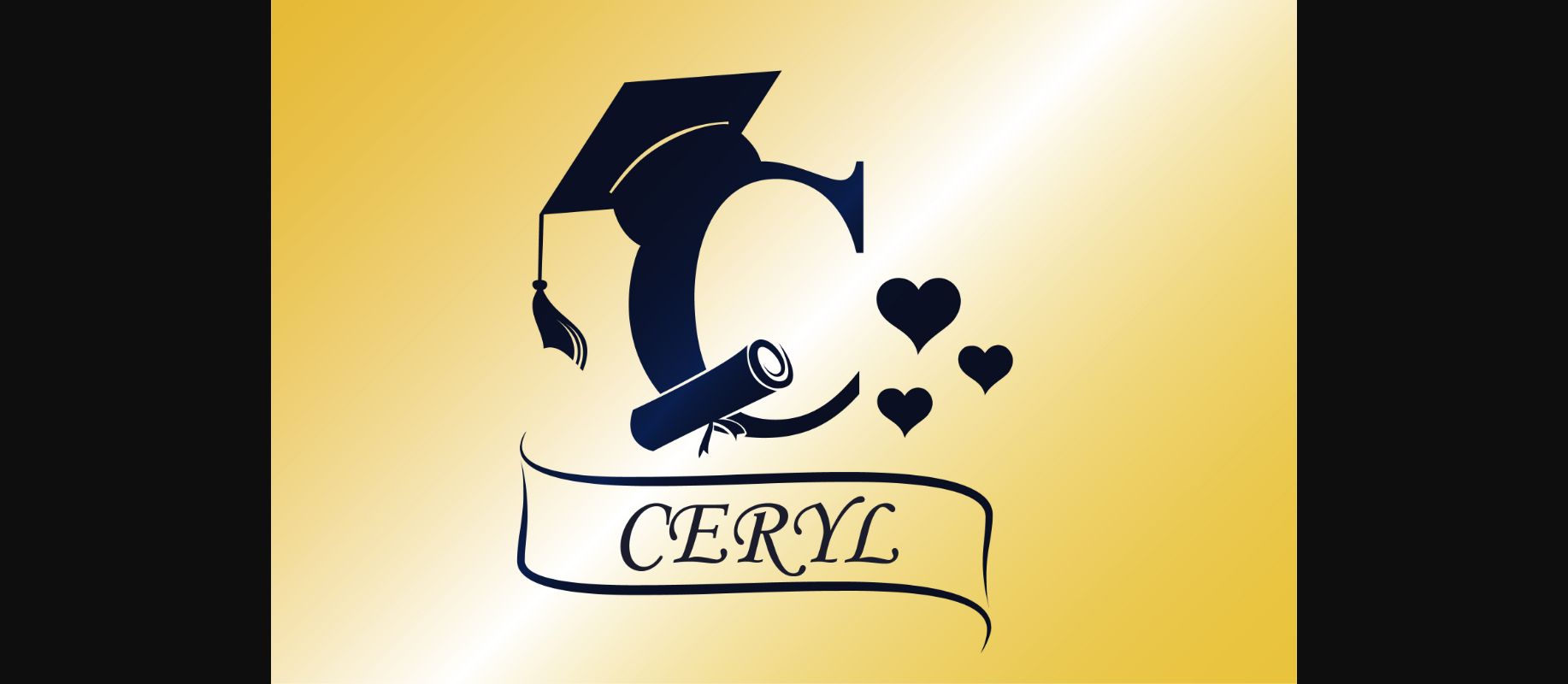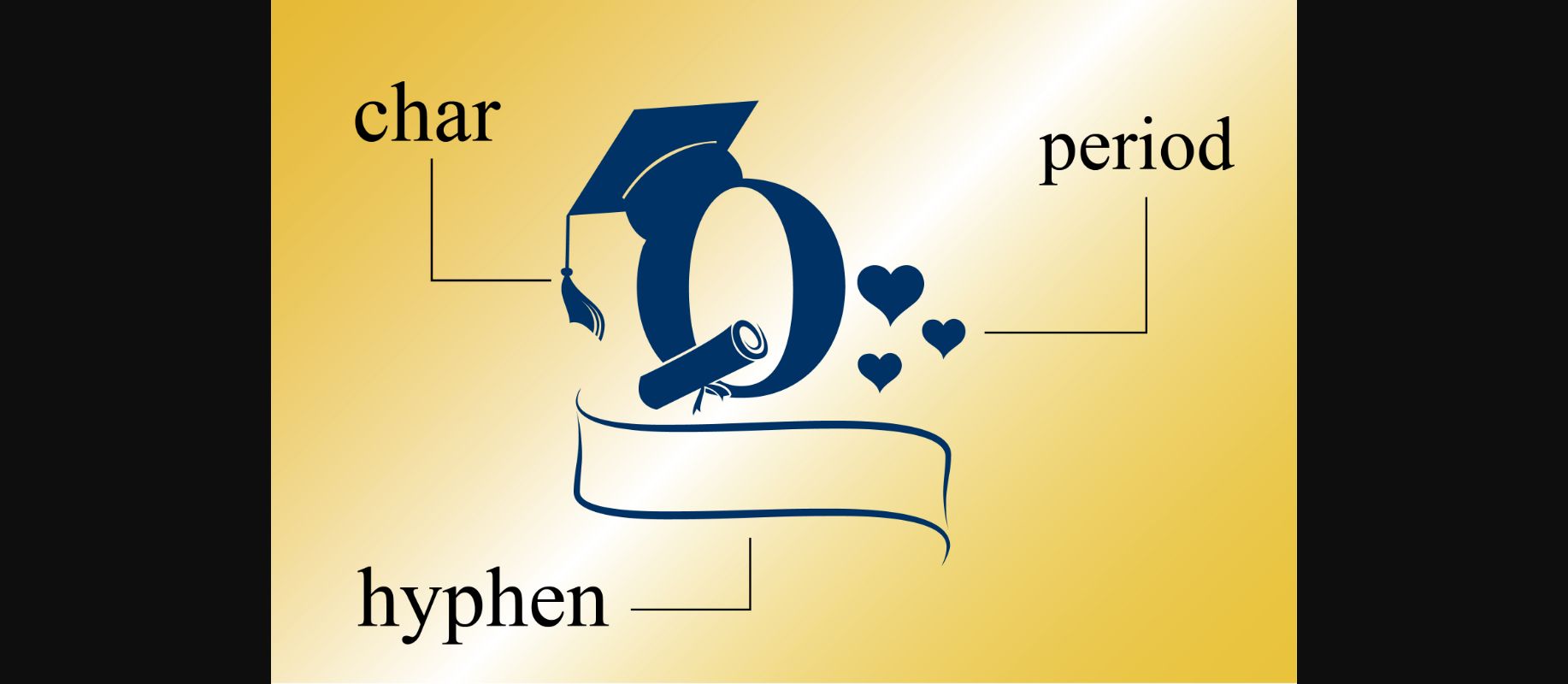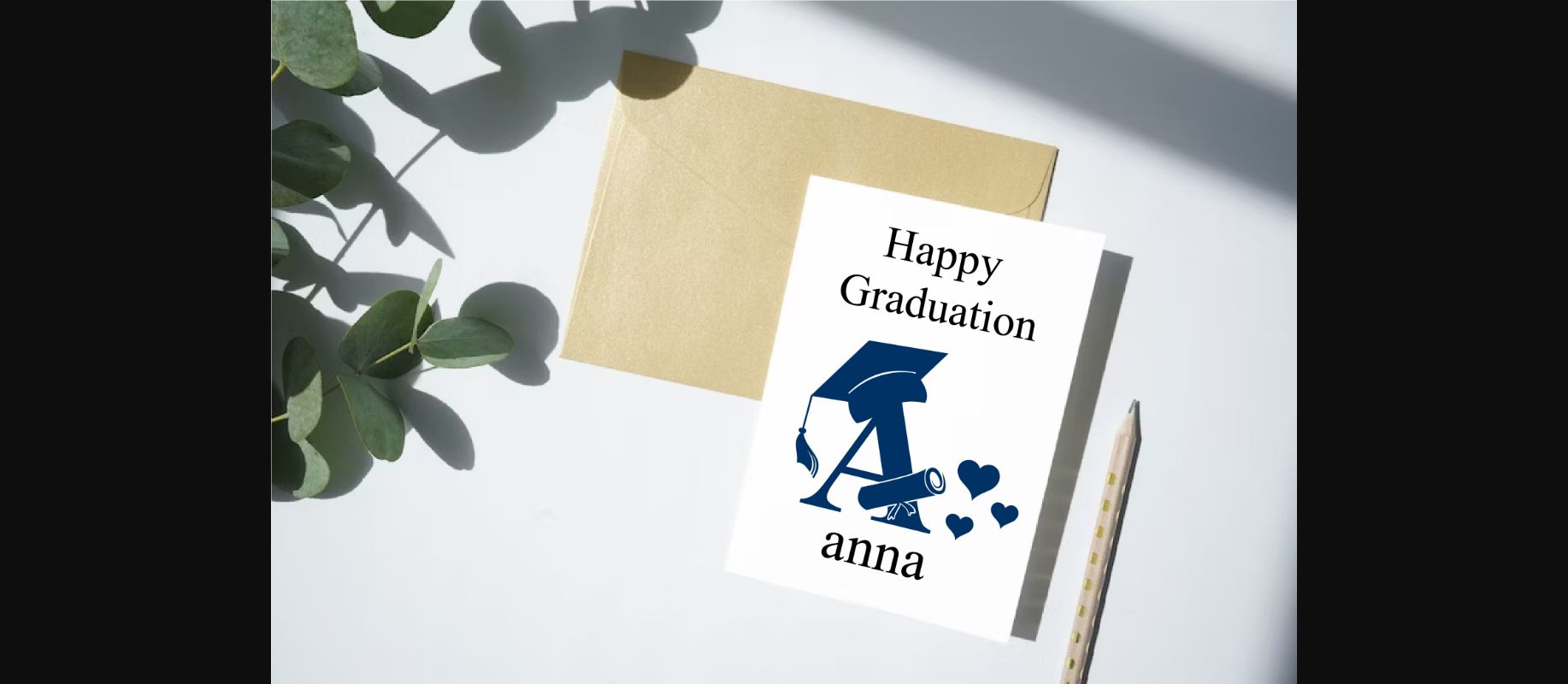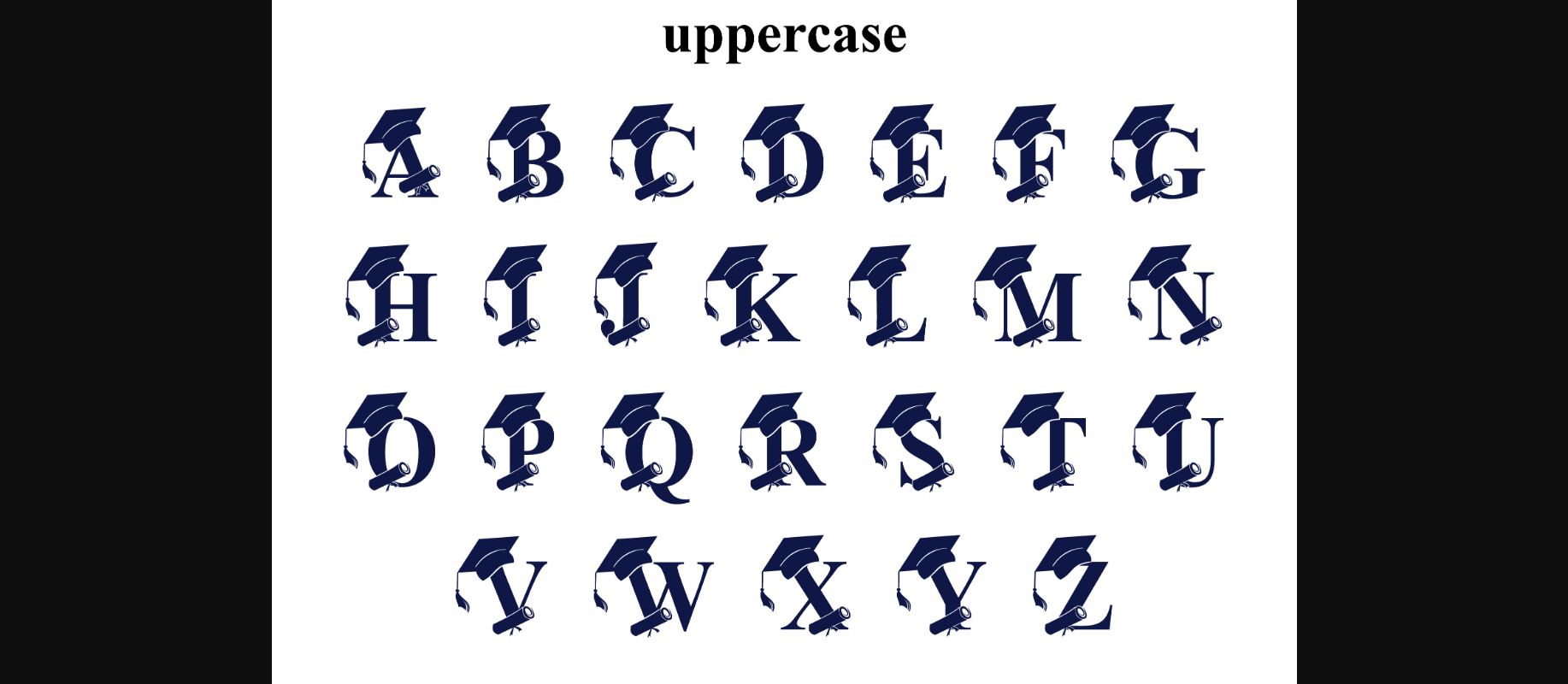
About Graduation Monogram Font
Graduation Monogram is a cute and unique decorative font. This font is the perfect choice for graduation or school-related projects. You can use this font on your products such as congratulations cards, t-shirts, tote bags, mugs, and anything else you find appropriate.